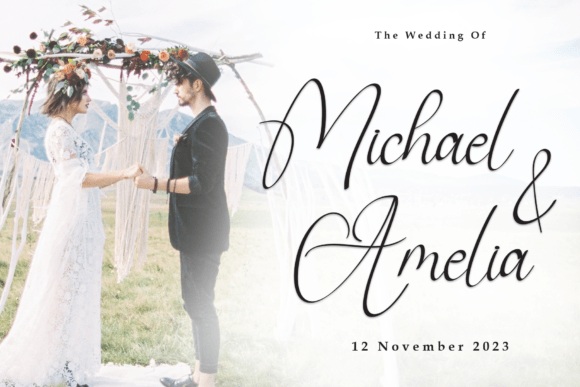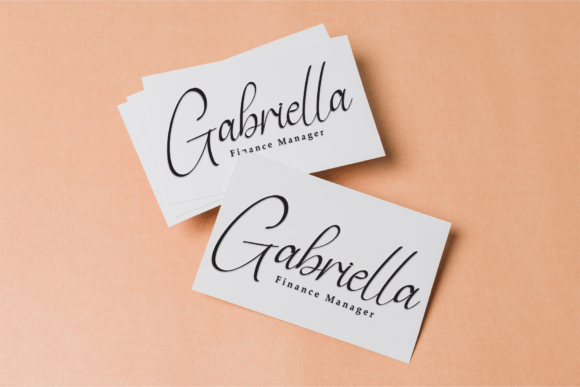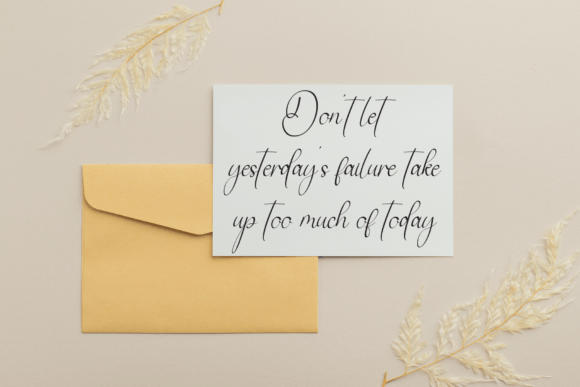
Introduction to Ainsley Signature Font
Ainsley Signature is a new modern script calligraphy typeface with its own unique flow and elegant personality.
Is suitable for all your design project needs such as logo design, branding, covers, posters, and more .
Why Choose Ainsley Signature Font?
Ainsley Signature Font offers exceptional quality and versatility, making it a valuable addition to your design toolkit. Whether you’re creating for personal projects or commercial use, Ainsley Signature Font delivers professional results.